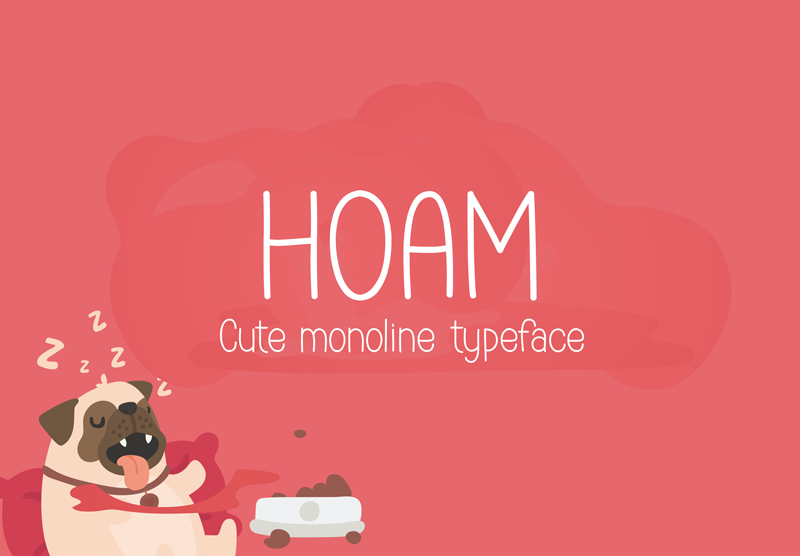
Hoam is a fun and light handwritten font with a cool vibe. It will add a whimsical spark to any creative project! https://www.creativefabrica.com/product/hoam/ |